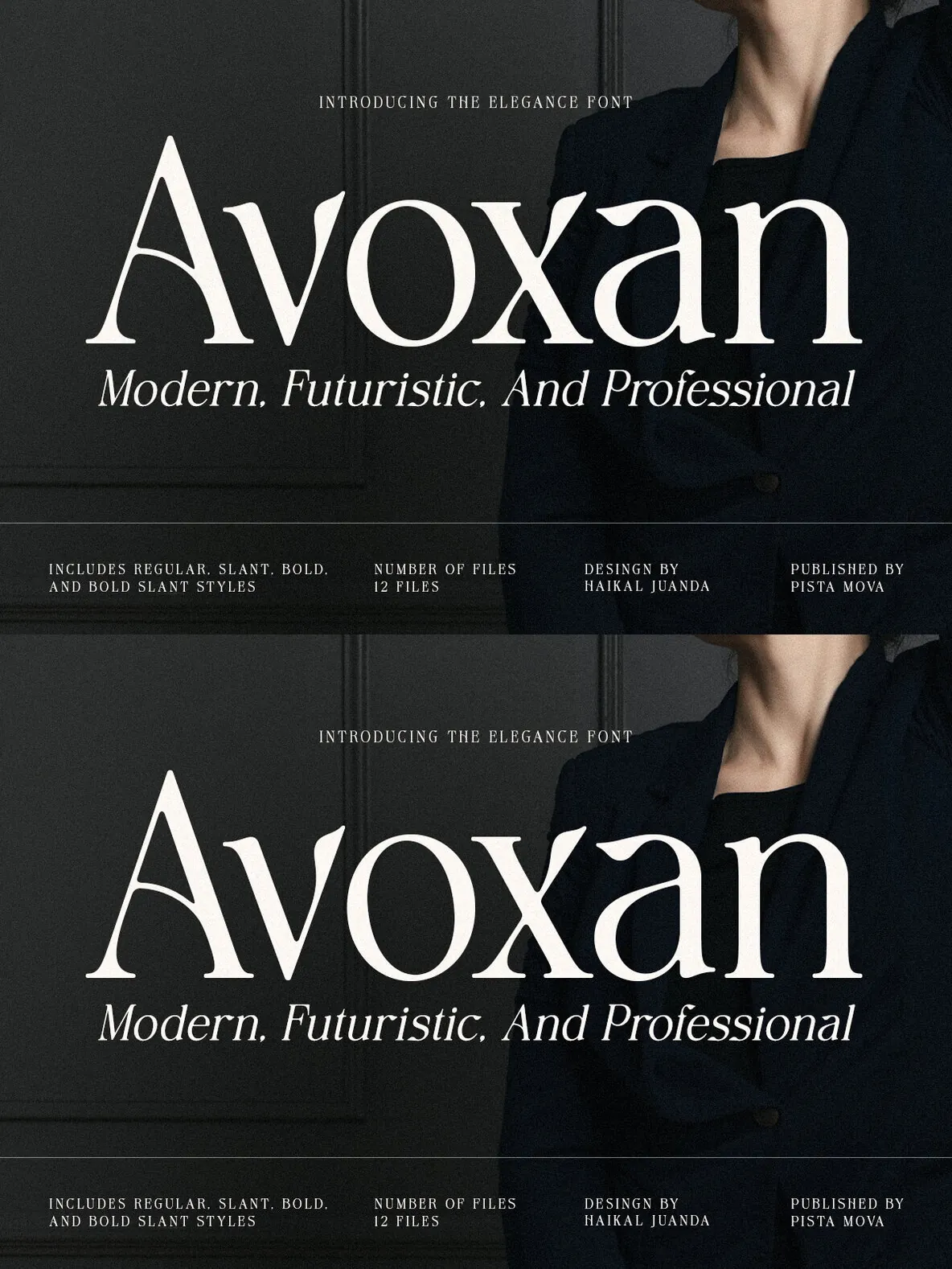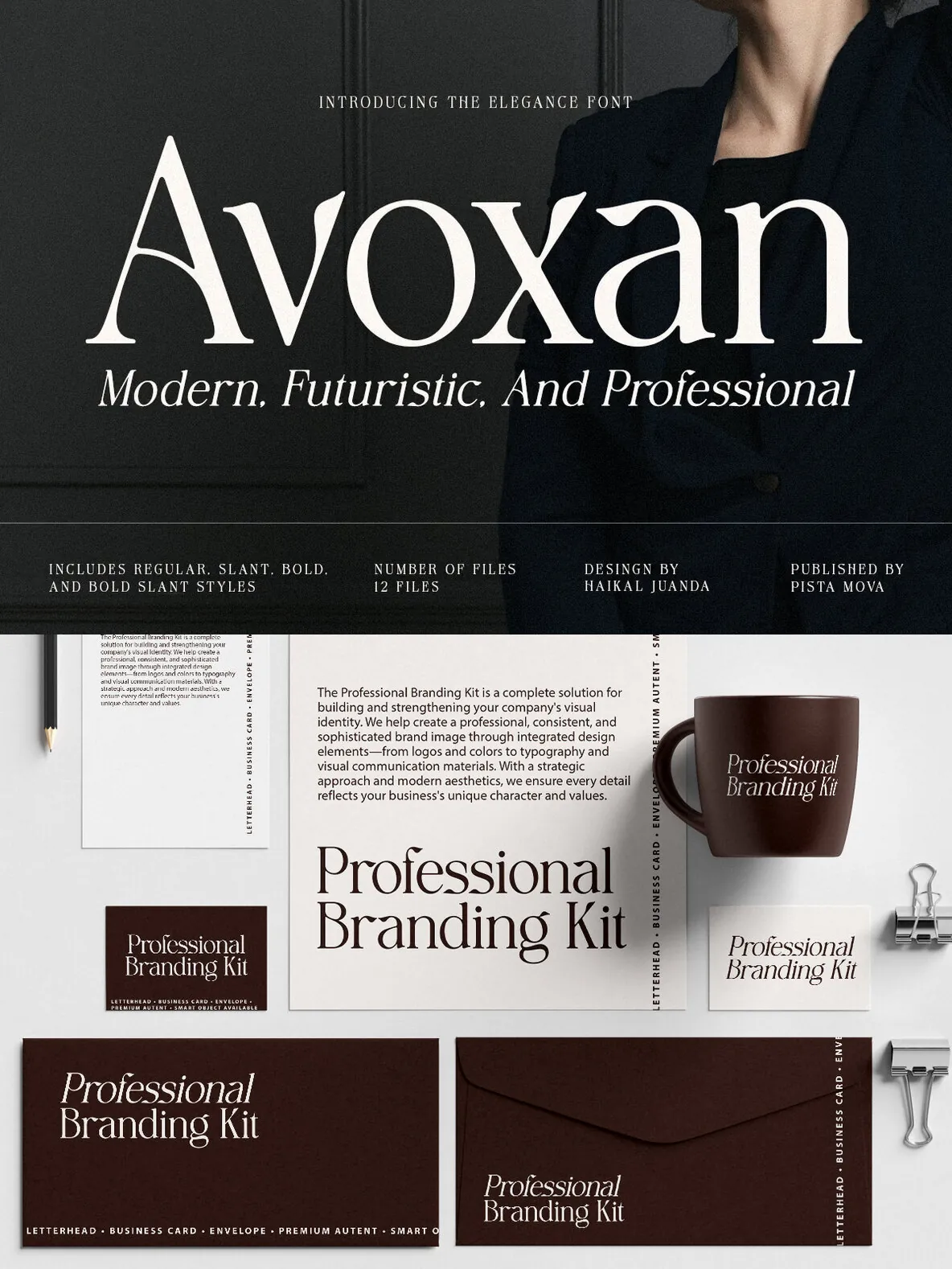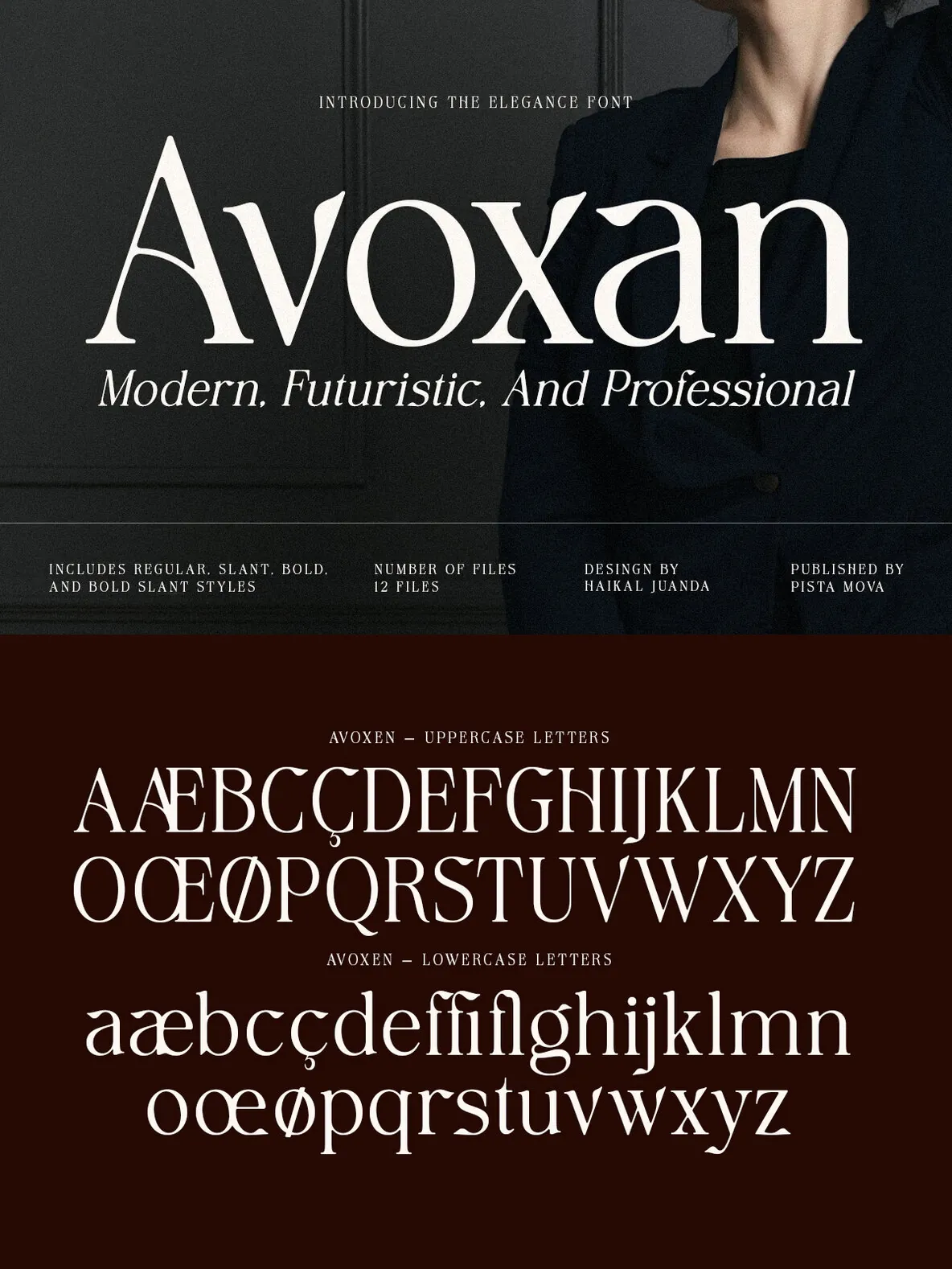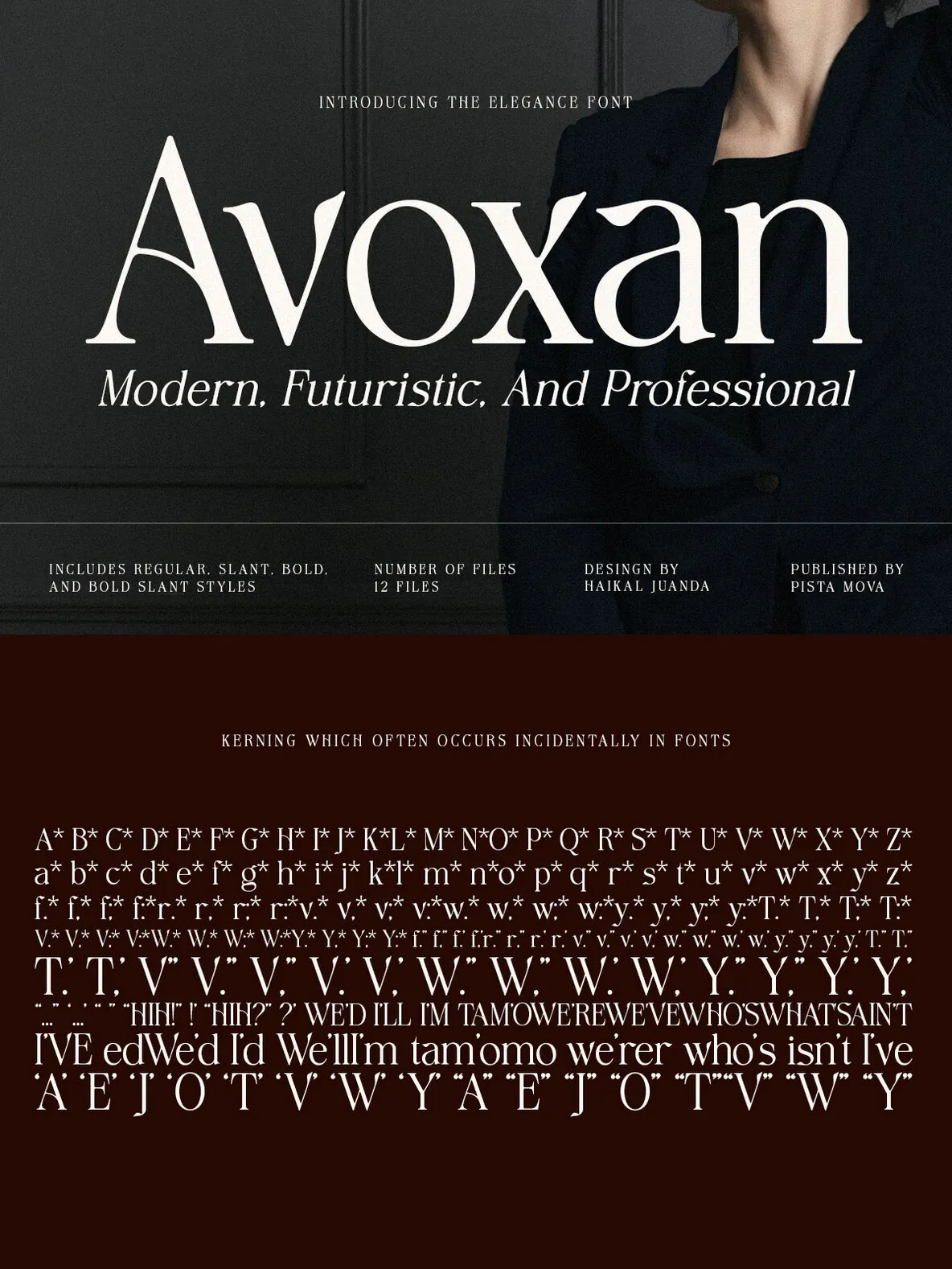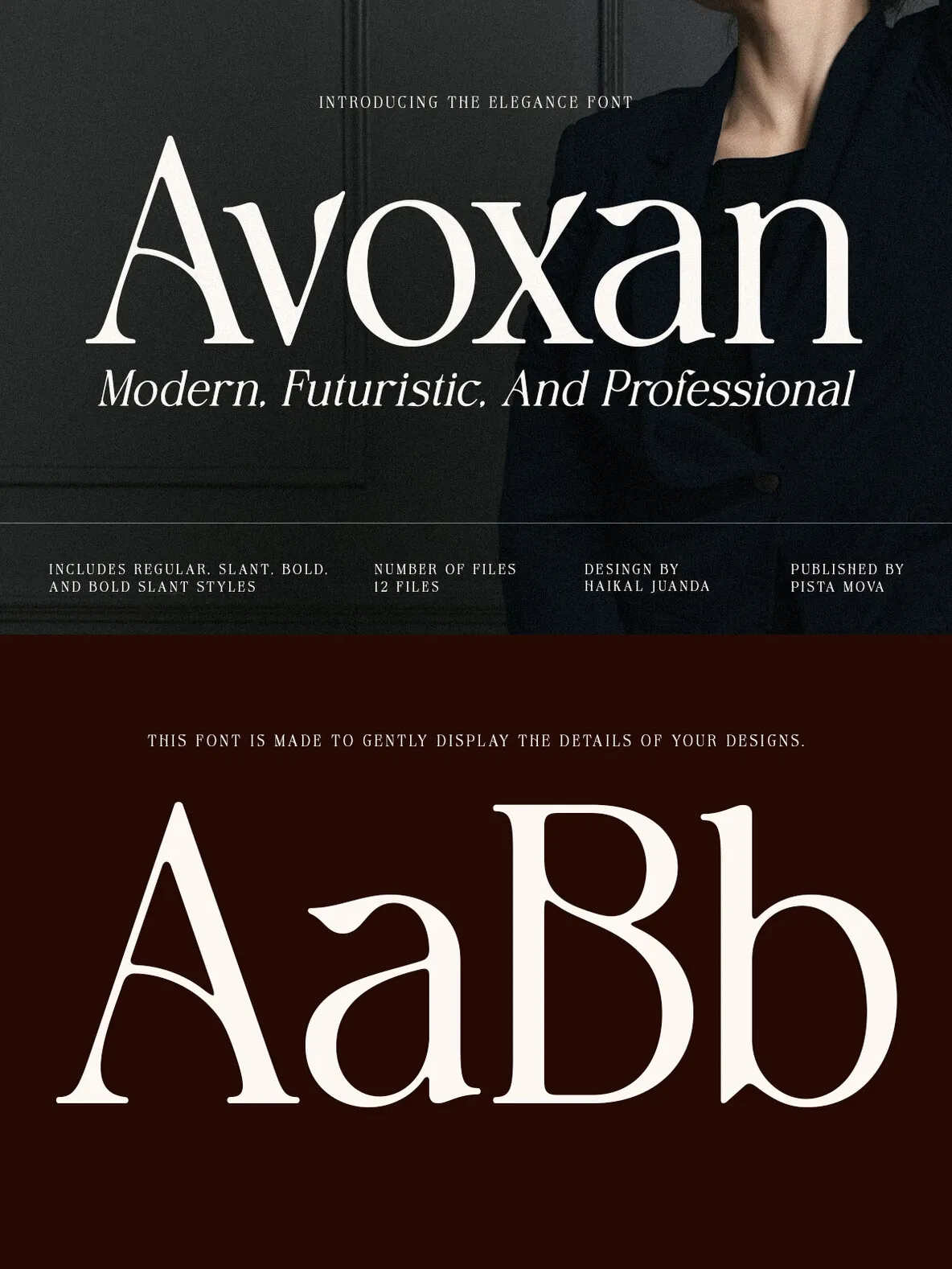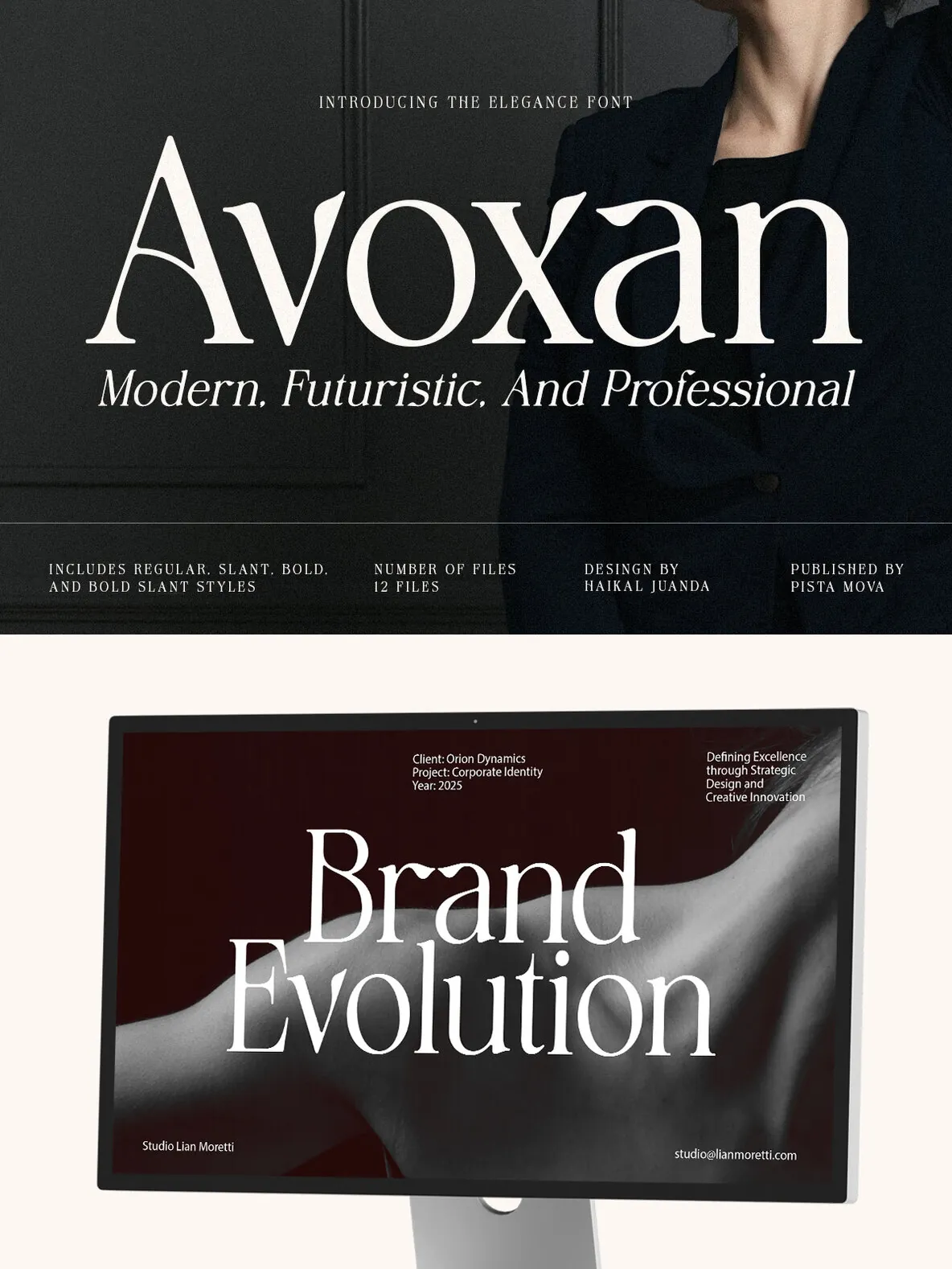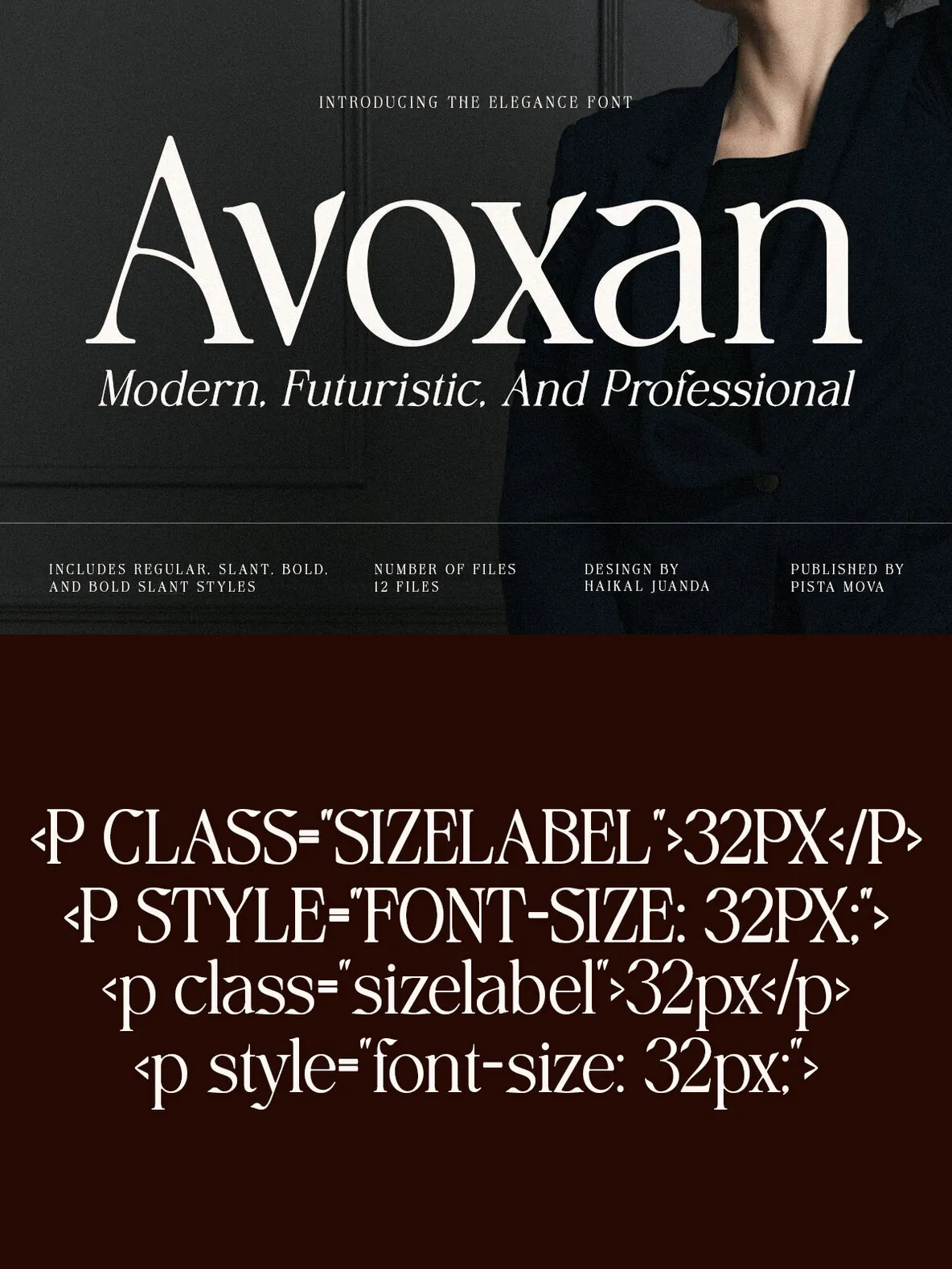
Avoxan: Timeless Elegance in Typography
Avoxan captures a world of refined beauty with its exquisite balance of classic sophistication and modern sensibility. Each curve and contour gracefully conveys confidence and elegance, making it a perfect choice for a variety of design projects. With high-contrast strokes and smooth transitions, Avoxan imbues your work with a quiet refinement that enhances its visual appeal.
Distinctive Features
Effortless Elegance
– Smooth curves and balanced proportions deliver timeless charm.
Advanced Typographic Control
– Featuring thoughtfully designed ligatures and alternate forms.
Global Reach
– Multilingual support for over 90 languages ensures universal appeal.
True Italics
– Individually crafted for graceful, fluid visual flow.
Ideal for Various Applications
Editorial Design
– Ideal for magazines and books seeking elegance and softness.
Branding & Logos
– Offers a harmonious blend of strength and subtlety.
Web Design
– Ensures smooth readability and modern clarity.
Packaging & Print
– Adds a touch of class to visual presentations.
Invitations & Stationery
– Perfect for conveying warmth and sophistication.
Coverage:
Available in 12 meticulously crafted styles.
Avoxan Regular
Avoxan Condensed
Avoxan Expanded
Avoxan Slant
Avoxan Slant Condensed
Avoxan Slant Expanded
Avoxan Bold
Avoxan Bold Condensed
Avoxan Bold Expanded
Avoxan Slant Bold
Avoxan Slant Bold Condensed
Avoxan Slant Bold Expanded
Embrace the understated sophistication of Avoxan, where elegance meets versatility in typography. Each letter speaks with quiet confidence.